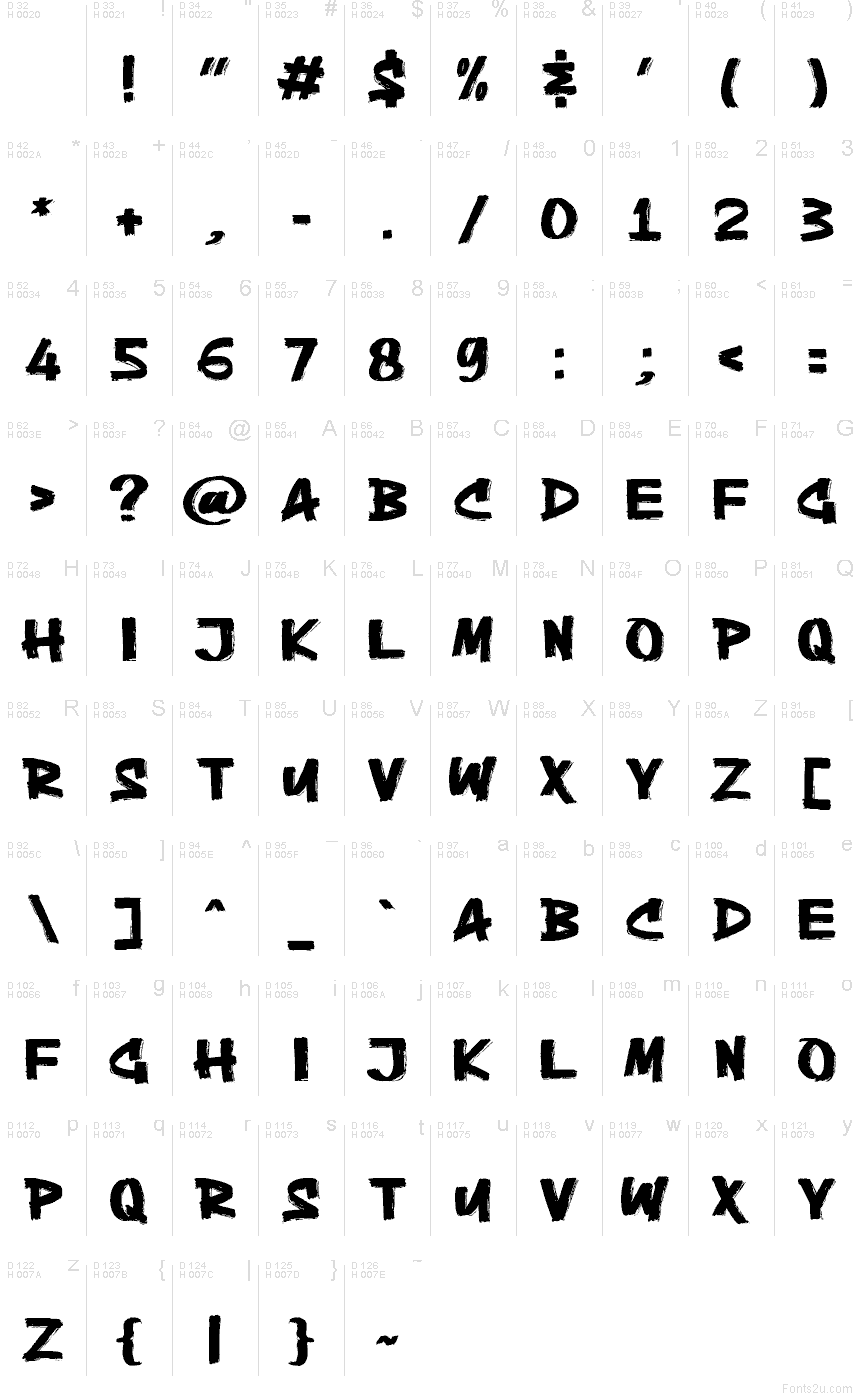
Rushon Ground
Rushon Ground font by Fikryal studio is a free brush typeface that hits like a spray-painted shout across concrete. Thick strokes, jagged edges, and inky splatters give it a raw, hand-scrawled energy that feels ripped from street posters or band flyers. Letters crowd in with tight spacing and irregular shapes, creating an urgent, chaotic rhythm that grabs attention from across the room.
Using Rushon Ground, you can push intensity in horror titles, rock or metal covers, extreme sports branding, protest posters, event flyers, and bold YouTube thumbnails. This free font works best big and loud, where its rough texture can really show. Pair it with a clean, neutral sans serif for body text so Rushon Ground can handle the shouting while the supporting type stays out of the way.